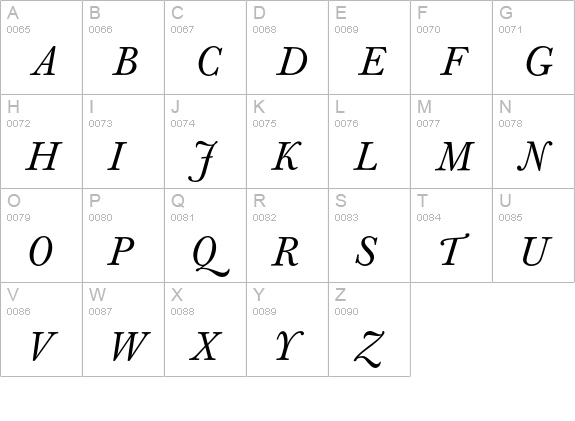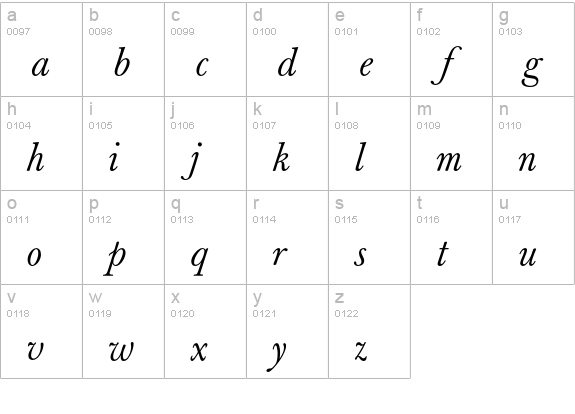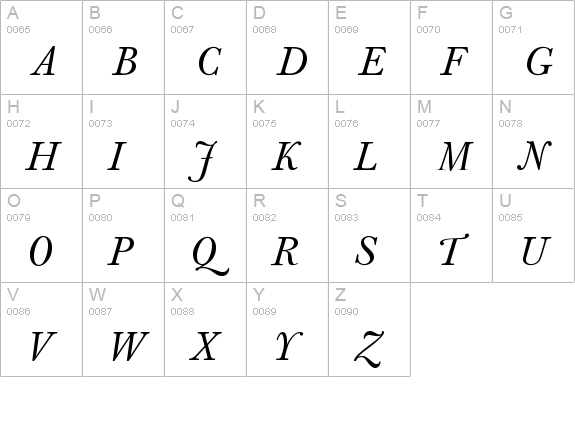
Baskerville Book R Font Details
Baskerville Book R is a comfortable, highly readable variant in the Baskerville typeface family \xE2\x80\x94 well suited to long-form body text, articles, and editorial content.
Baskerville Book R font is a timeless and elegant typeface that exudes sophistication and class. With its crisp serifs and balanced letterforms, this font is perfect for conveying a sense of refinement and tradition in any design project. The Baskerville Book R font is free to download at FontsMarket.com, making it easily accessible for designers and creatives looking to add a touch of timeless elegance to their work. Whether used for branding, editorial design, or any other creative endeavor, Baskerville Book R is sure to make a lasting impression with its classic and versatile appeal.